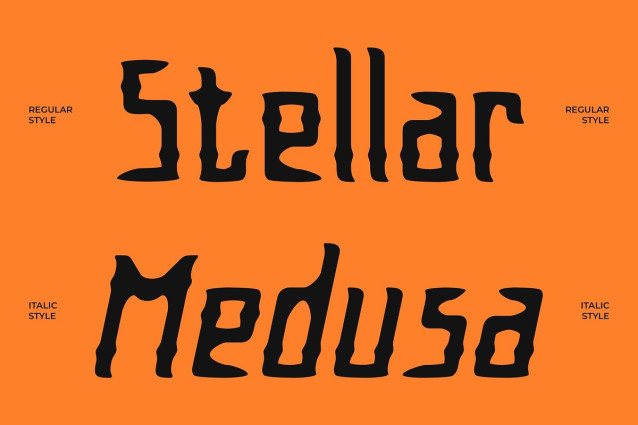
CS Thimble Drawn Font
CS Thimble Drawn Font – This is a gothic-inspired display font that thrives on bold strokes and dramatic detail. Its sharp letterforms borrow from classical tuscan traditions, bringing a strong decorative edge to your typography. This balance of strength and artistry makes it a powerful choice for designs that aim to captivate and intrigue.
Hand-Drawn Texture for Expressive Character What sets font apart is its drawn, handmade quality. Each curve and stroke carries the mark of human touch, softening its gothic intensity with artistic expression. The texture adds depth and authenticity, giving the font an organic feel that makes it stand out from standard gothic or tuscan typefaces.
Perfect for Bold and Mysterious Design From mysterious book covers to dramatic posters and striking brand identities, this font is designed to leave a lasting impression. Its decorative power works beautifully in storytelling contexts, while its gothic flair ensures a sense of mystery, grandeur, and timeless appeal.
Versatile Across Classic and Modern Applications Though rooted in historical inspiration, this font is highly adaptable. It works seamlessly across branding, cultural projects, editorial layouts, and event promotions. By blending gothic tradition with drawn artistry, this font delivers a unique voice that is both classic and expressive, ensuring your design captures attention with elegance and drama.